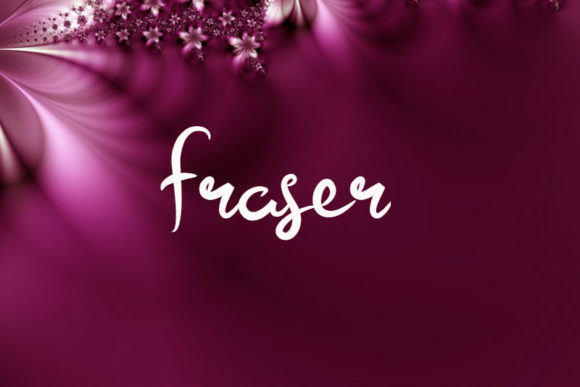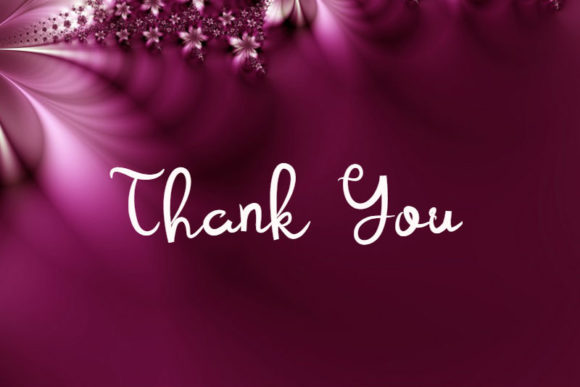
Fraser Font
About Fraser Font
Fraser is a simple, yet elegant script with a cool touch. Get inspired by its incredible feel, and turn any design idea into a standout!